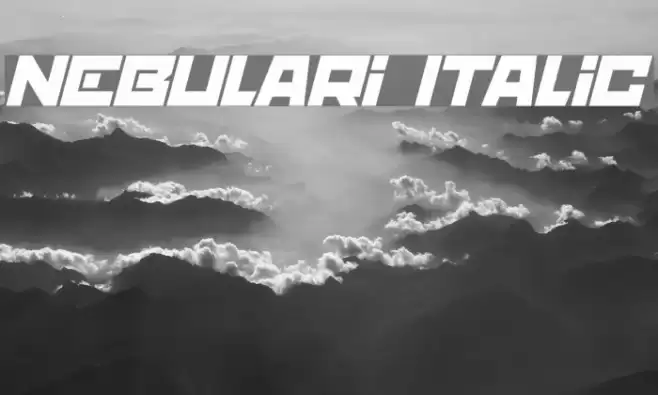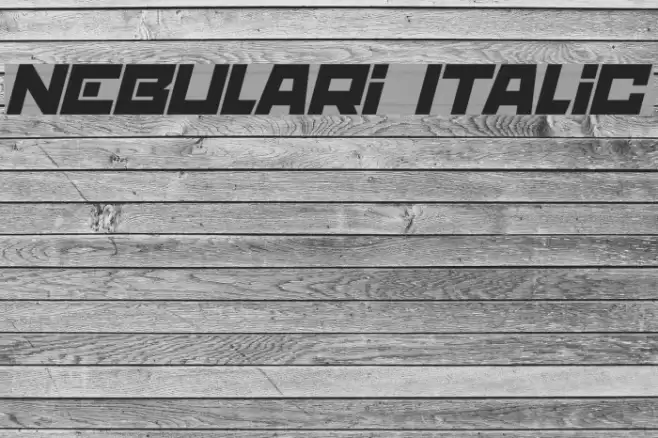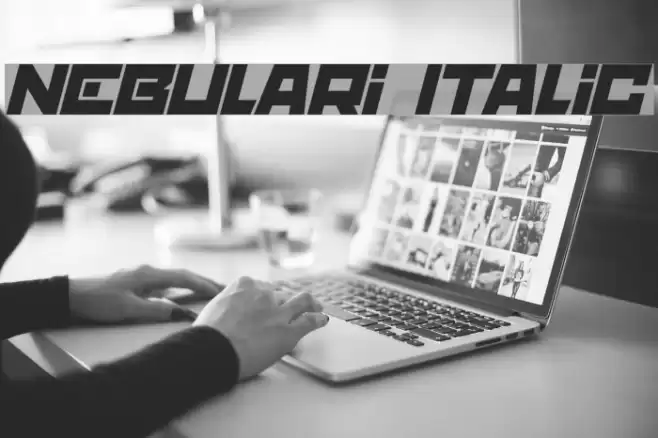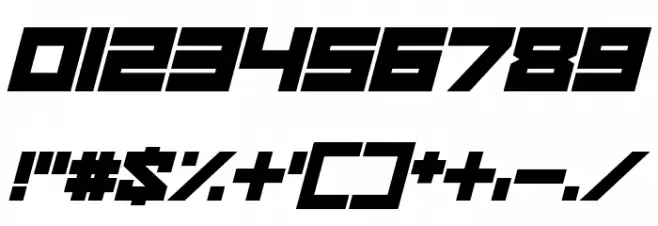
nebulari Italic Font
nebulari Italic Description
This font features a bold, angular design with a futuristic and dynamic appearance. The characters are sharply cut with a distinct slant, giving an italicized effect that enhances its modern aesthetic. The uppercase and lowercase letters maintain a consistent style, with geometric shapes and clean lines. Numbers and special characters follow the same design principles, ensuring uniformity across all glyphs. The overall look is sleek and powerful, making it suitable for projects that require a strong visual impact.
A bold, angular, and italicized font with a futuristic design from Uncategorized fonts.
- Proposed Projects: Ideal for sci-fi themed designs, video game titles, tech branding, and dynamic posters.